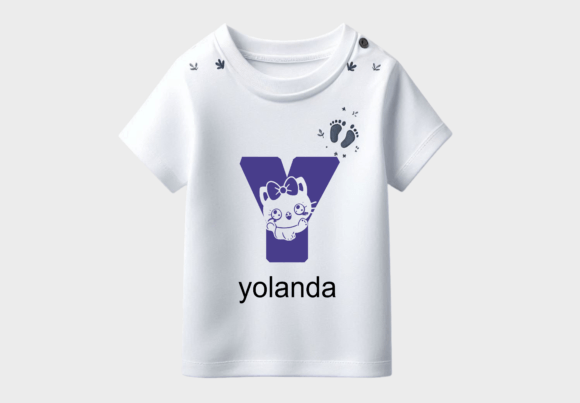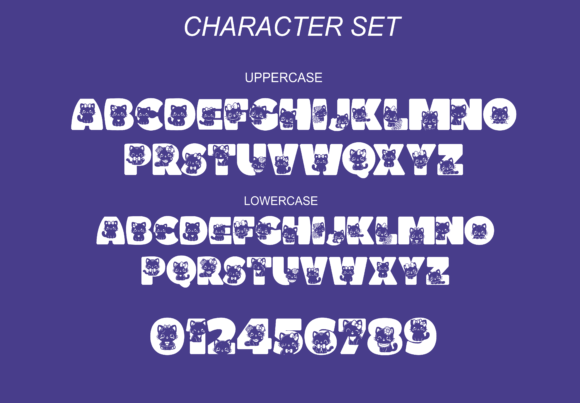
Introduction to Pretty Cat Font
Have you ever stumbled upon a font that sparks your imagination and sets your creative juices flowing? For designers, finding the perfect font can be a game-changer. It’s the moment when the right combination of style and personality clicks, and your design project comes to life in a way you never thought possible. For many, that moment arrives with the Pretty Cat Font, a uniquely crafted typeface that exudes a sense of whimsy and wonder.
With its shimmering characters and transparent background, the Pretty Cat Font is a design resource that’s as versatile as it is visually striking. Whether you’re working on a high-quality project that requires a touch of magic or a free download that needs a dash of personality, this font is sure to deliver. Its adaptability makes it a valuable asset for any creative project, from logos and branding to digital art and graphic design.
Key Features of Pretty Cat Font
- High-quality design with intricate details and smooth lines, making it perfect for creative projects.
- Available in a transparent background, allowing for easy customization and versatility.
- Designed as a design resource, the Pretty Cat Font is ideal for use in logos, branding, and other creative projects where a unique and eye-catching font is required.
- Unique characteristics include a mix of modern and vintage elements, making it a standout choice for designers looking to add a touch of whimsy to their projects.
Honest Review: Pretty Cat Font
As a designer, I’m always on the lookout for high-quality design resources to elevate my creative projects. Recently, I stumbled upon the Pretty Cat Font, and I’m excited to share my honest review.
What works well about the Pretty Cat Font is its cute and playful aesthetic, perfect for designing projects that need a touch of whimsy. The font is available for free download, making it an excellent resource for designers on a budget. The transparent background feature allows for seamless integration with various design elements.
The Pretty Cat Font is a great addition to any design library, offering a unique and creative touch to projects. Here are some of its notable features:
- High-quality design with a transparent background
- Perfect for creative projects, such as social media graphics, blog posts, and more
While the Pretty Cat Font is a great design resource, there are some limitations to consider. The font may not be suitable for professional or corporate branding due to its playful nature. Additionally, the font may not be compatible with all design software.
Overall, I’m impressed with the Pretty Cat Font, and I would recommend it to designers looking for a unique and creative design resource. With its high-quality design and free download, it’s an excellent addition to any design library.
Pretty Cat Font is commonly used in creative projects such as logo designs, social media graphics, and advertising materials. Its high-quality design and transparent background make it a popular choice among designers and artists.